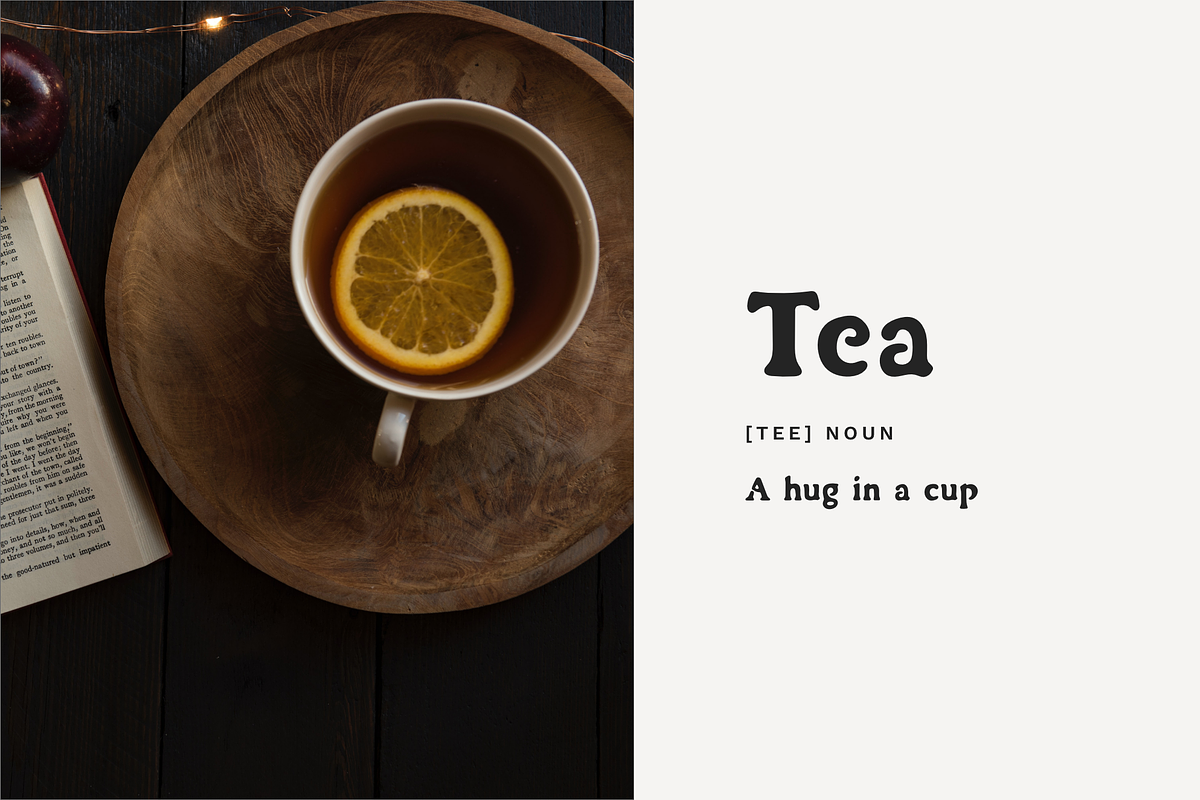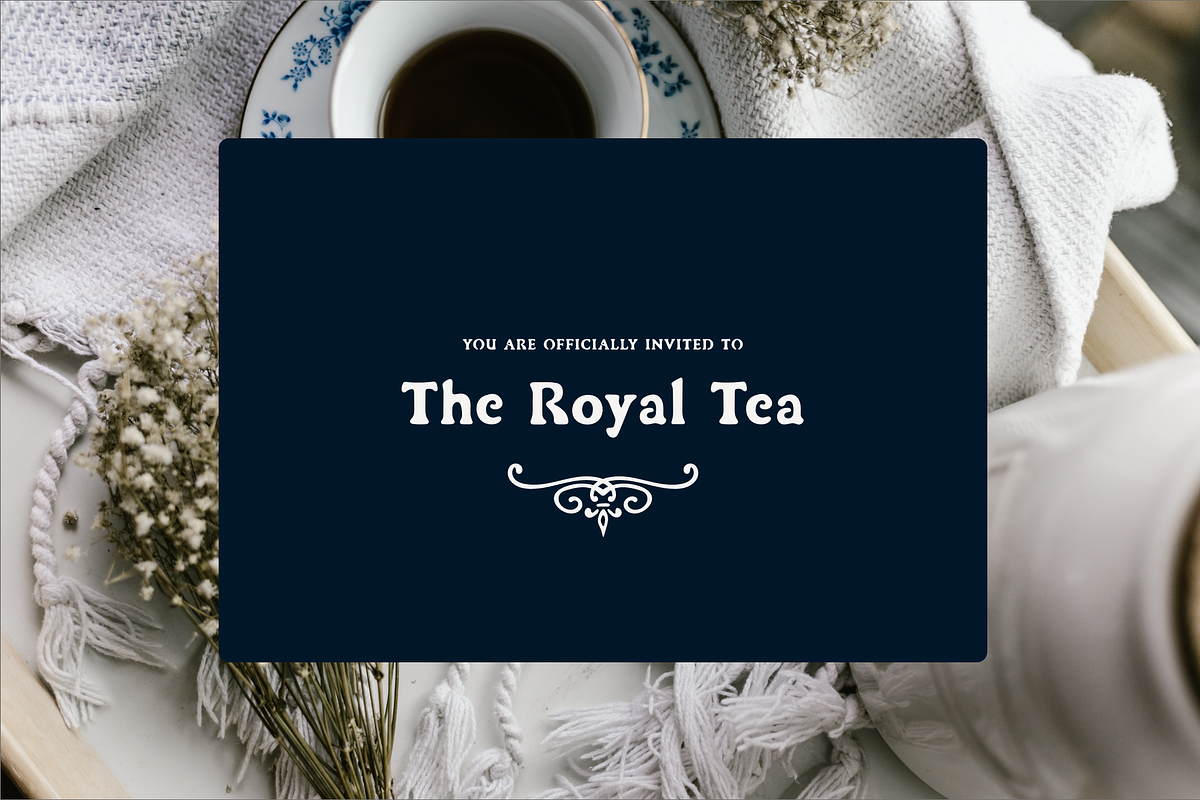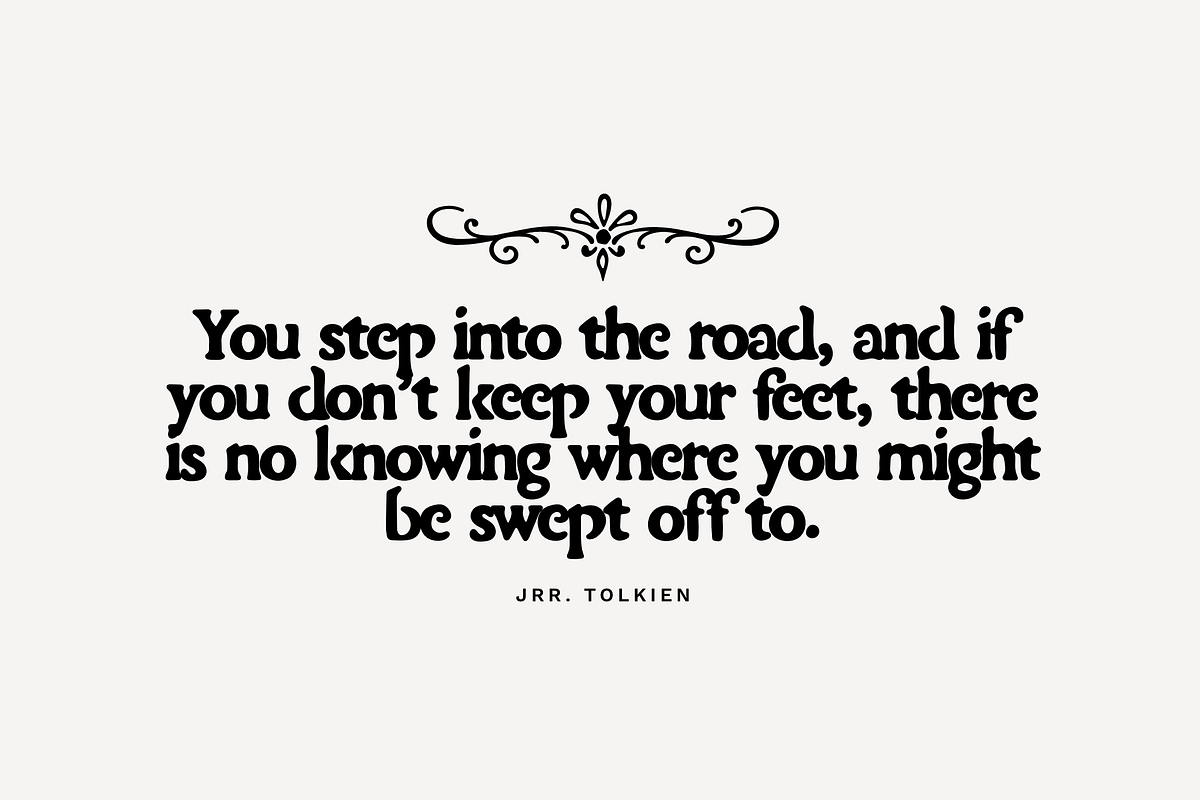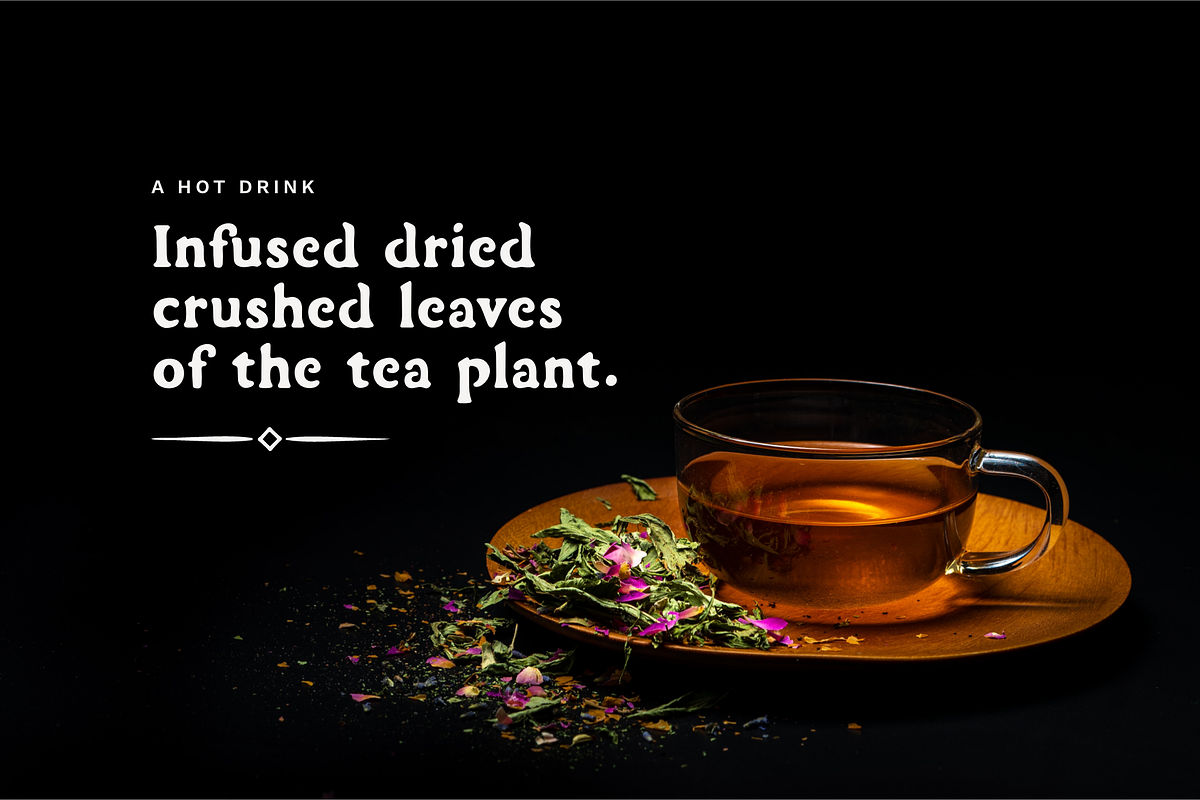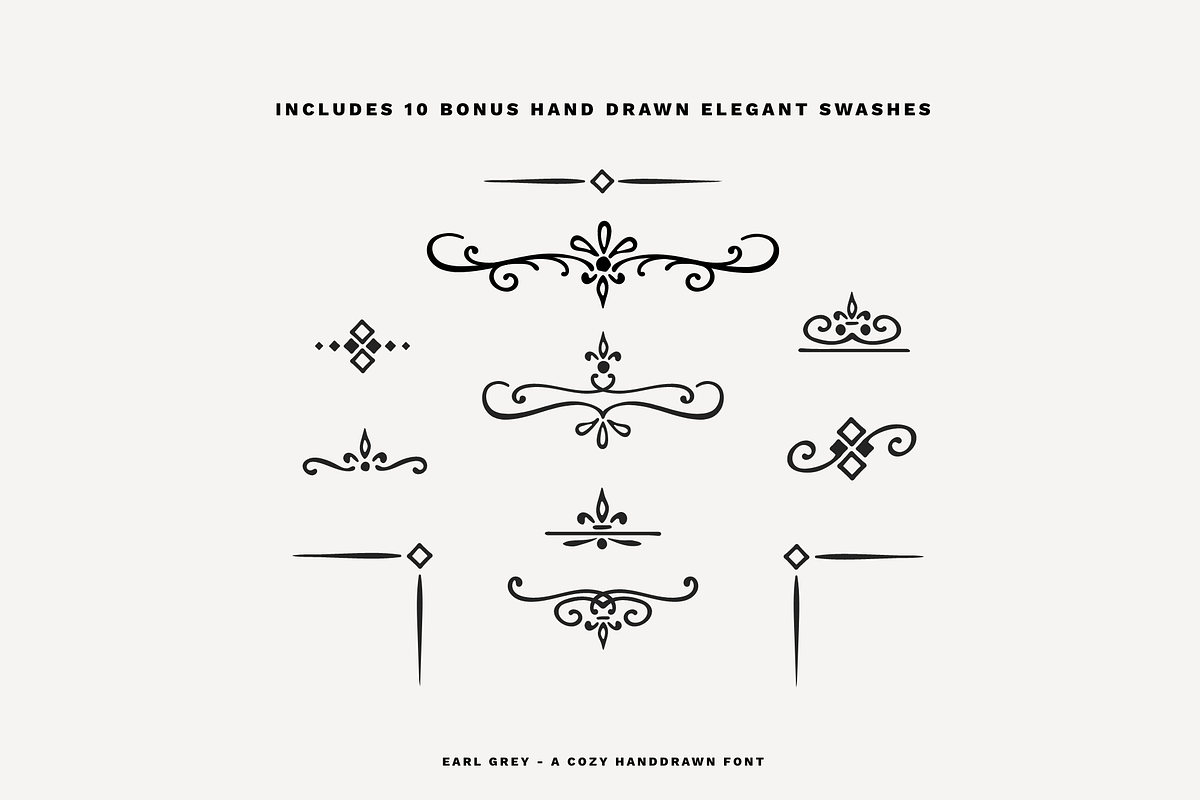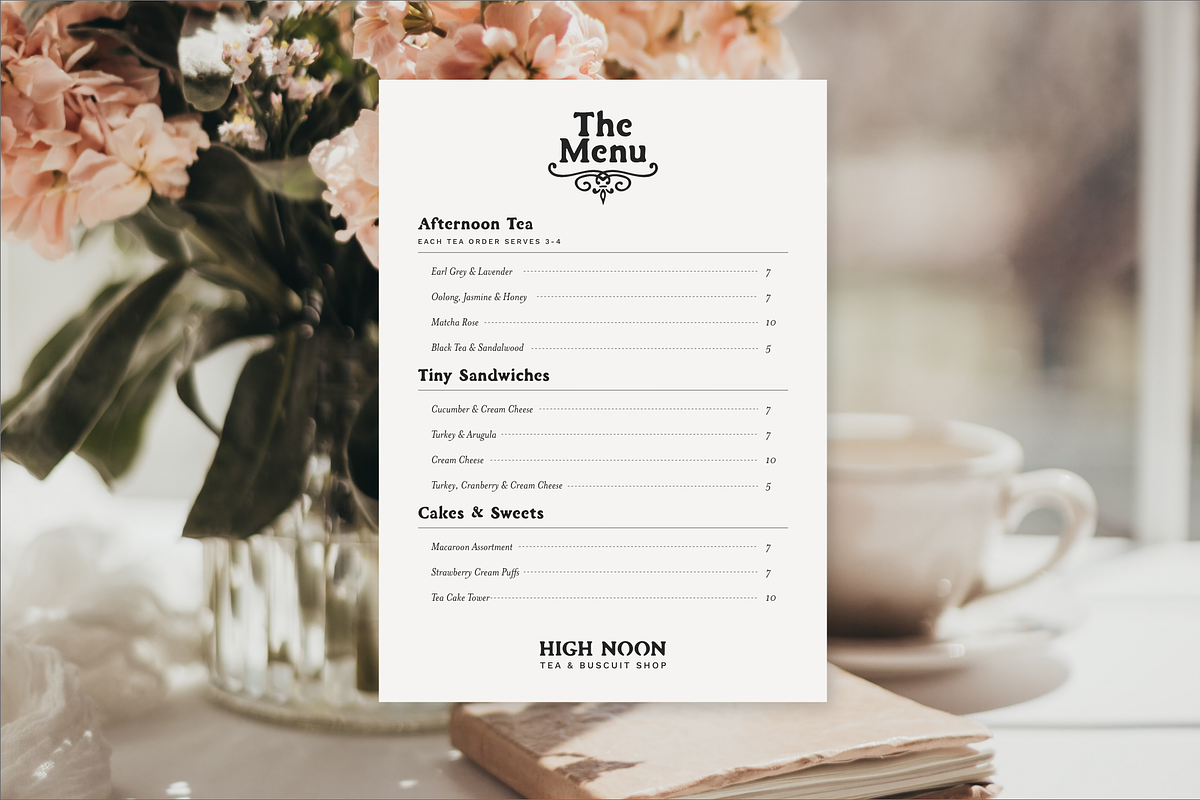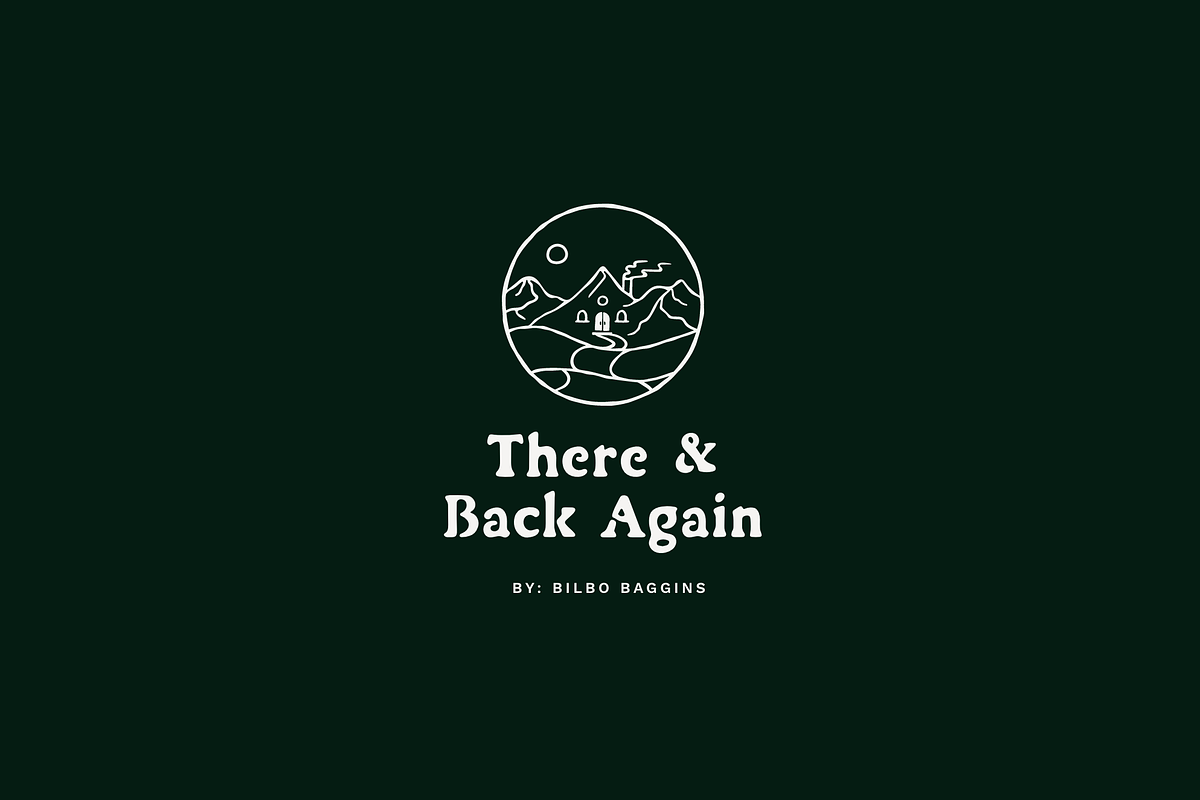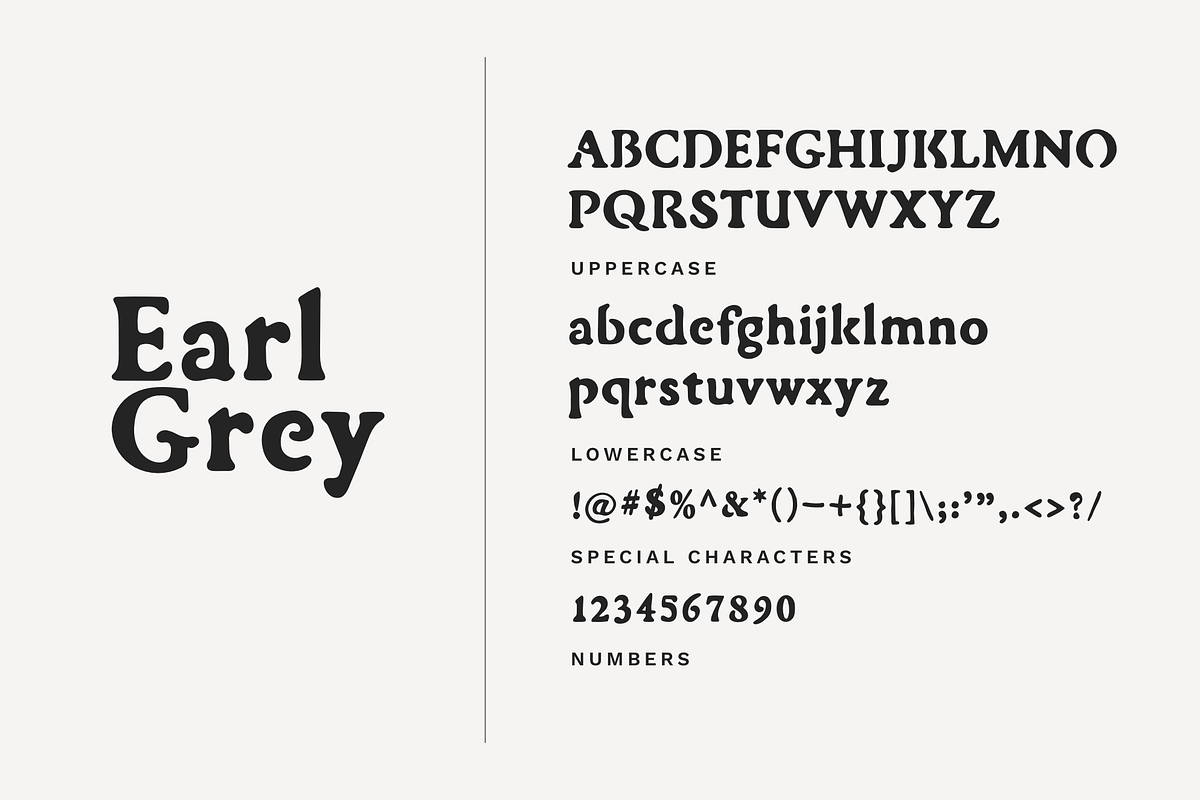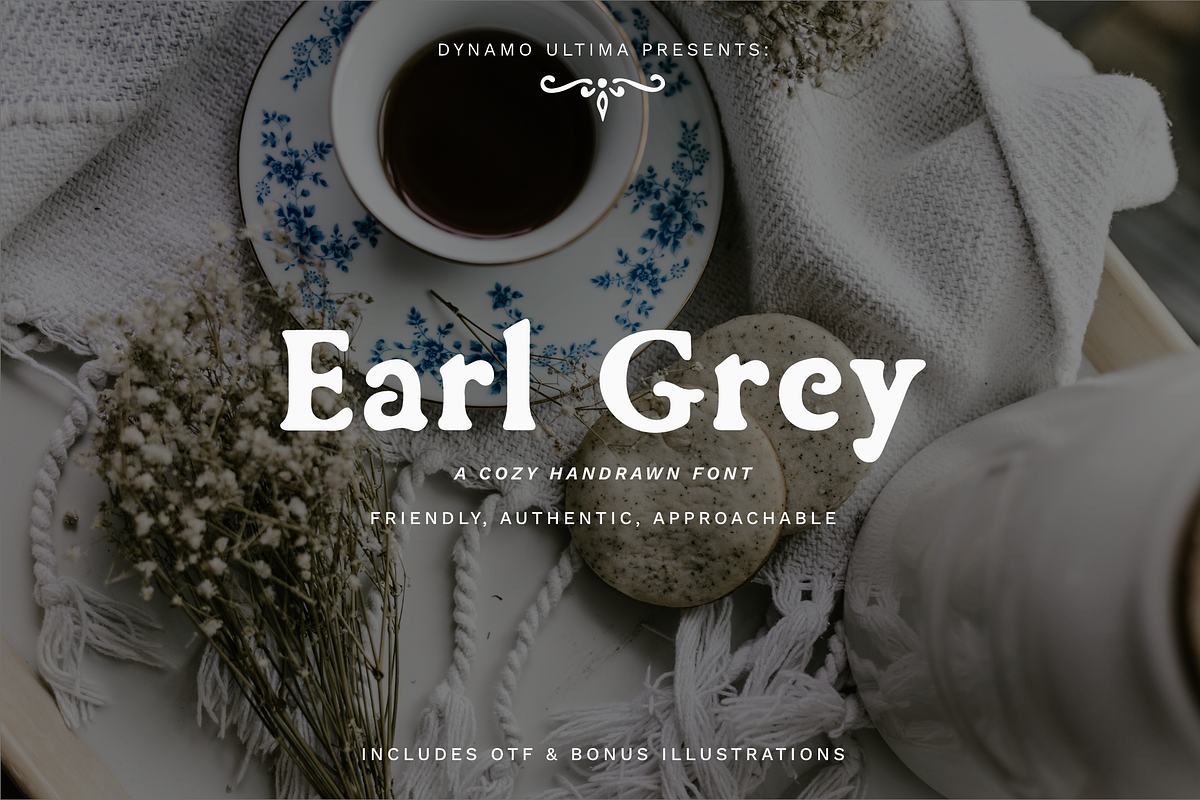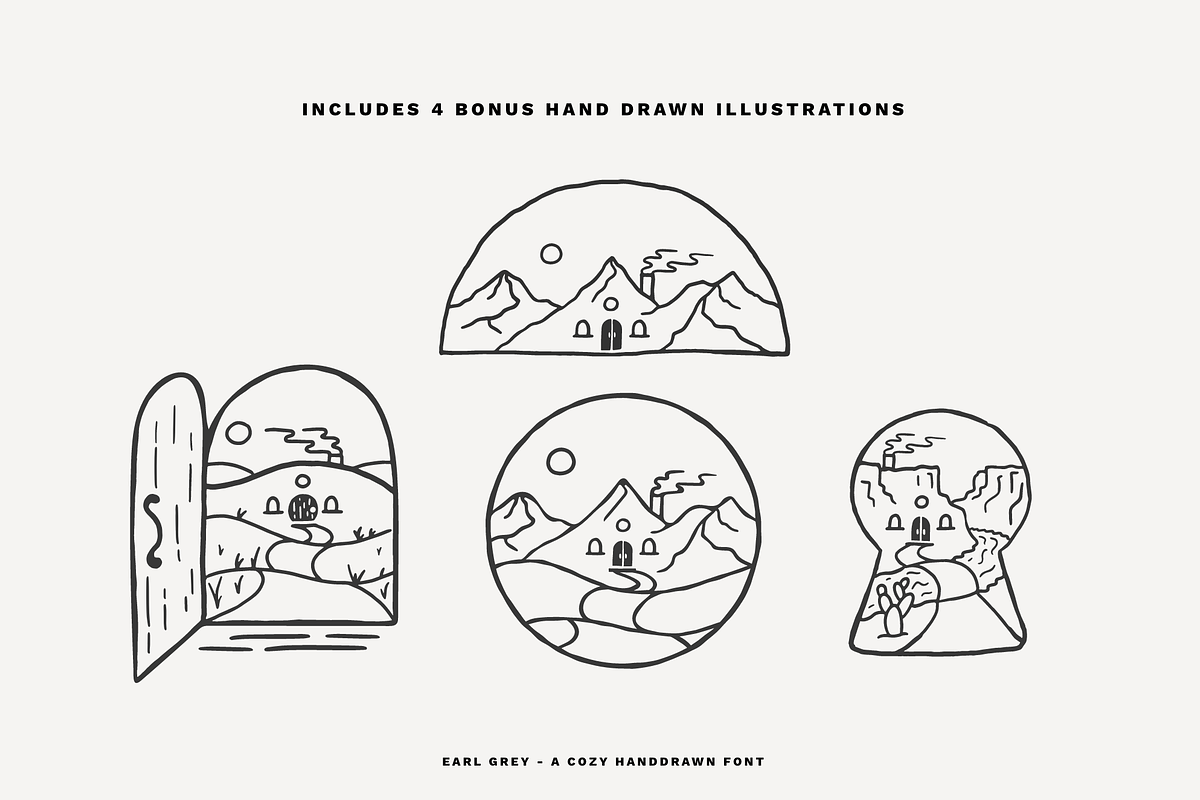
Earl Grey - Handmade Cozy Serif
Earl Grey is a classic UPPER AND LOWERCASE serif font with a cozy, friendly, and inviting vibe.
It was made by hand which gives it that authentic flair of a handmade aesthetic making it feel more friendly, authentic, and approachable.
The font also comes with 10 hand drawn swashes & 4 custom illustrations.
Choose Earl Grey if you need a bold serif with a dash of handmade imperfections. Perfect for the academic, book worm, lover of tea and curling up on the couch with a book.